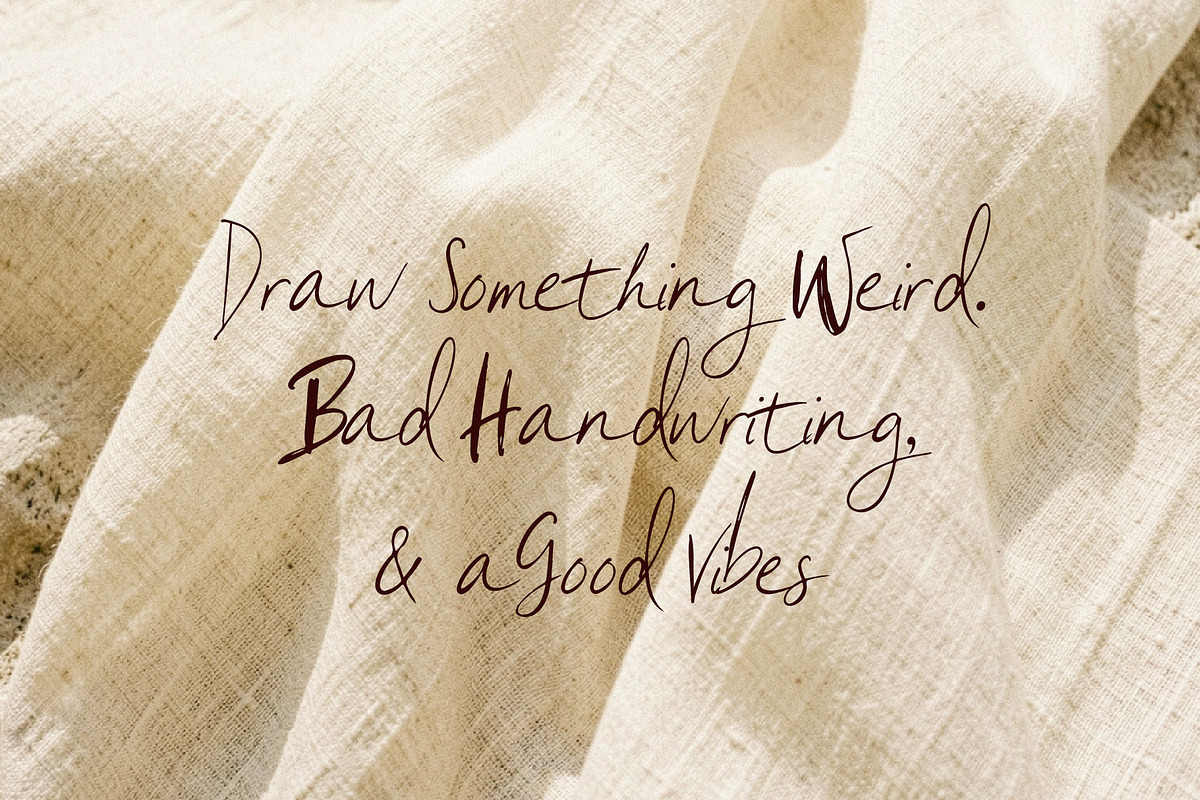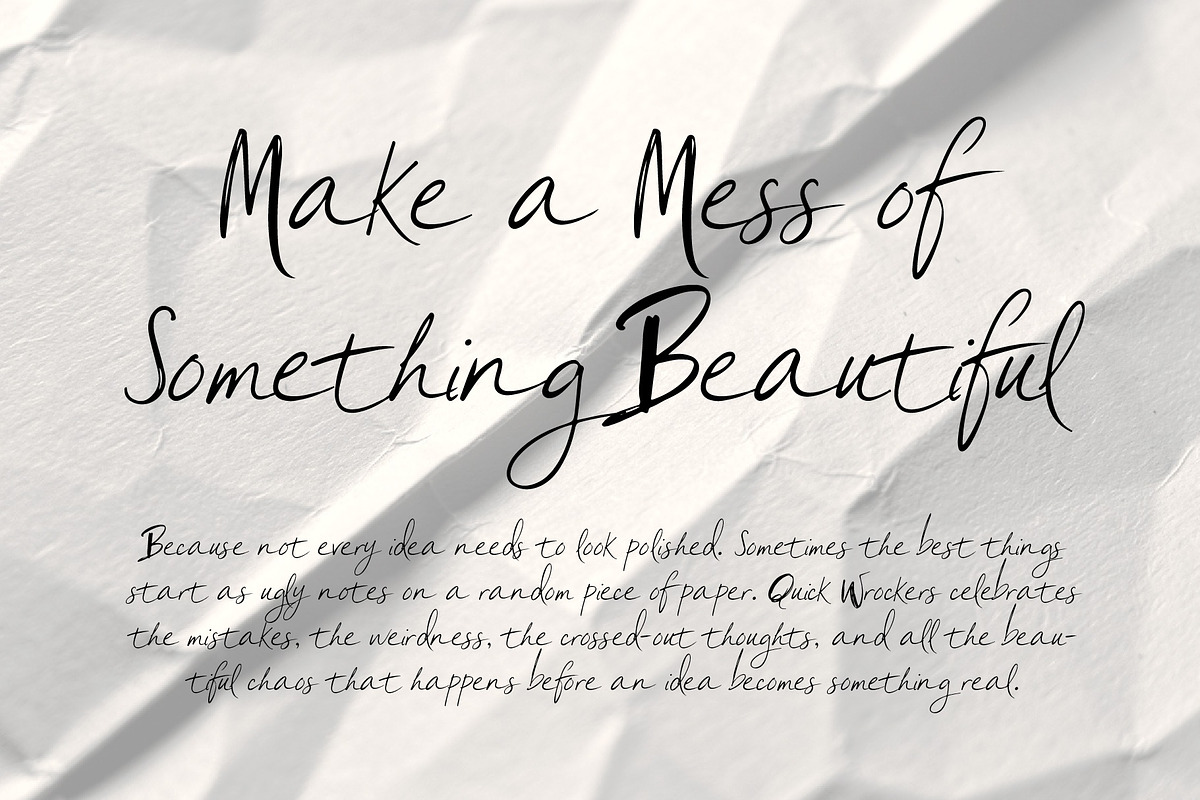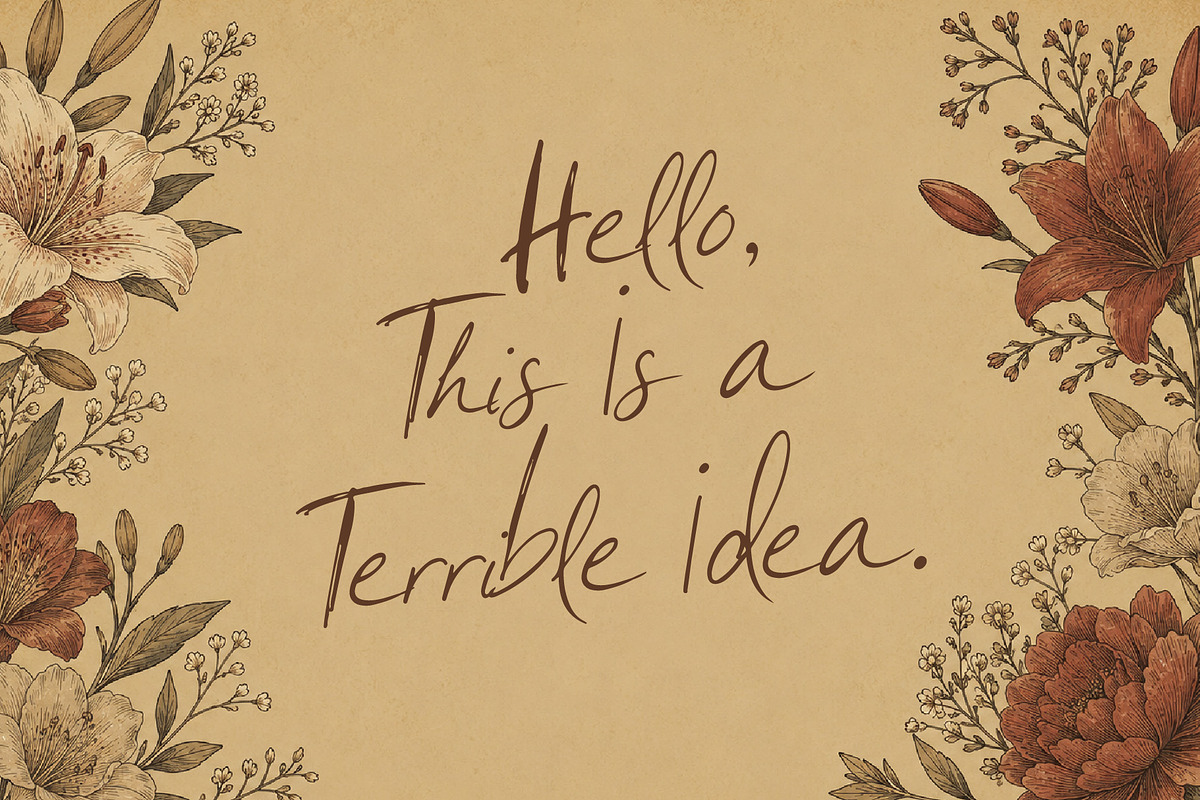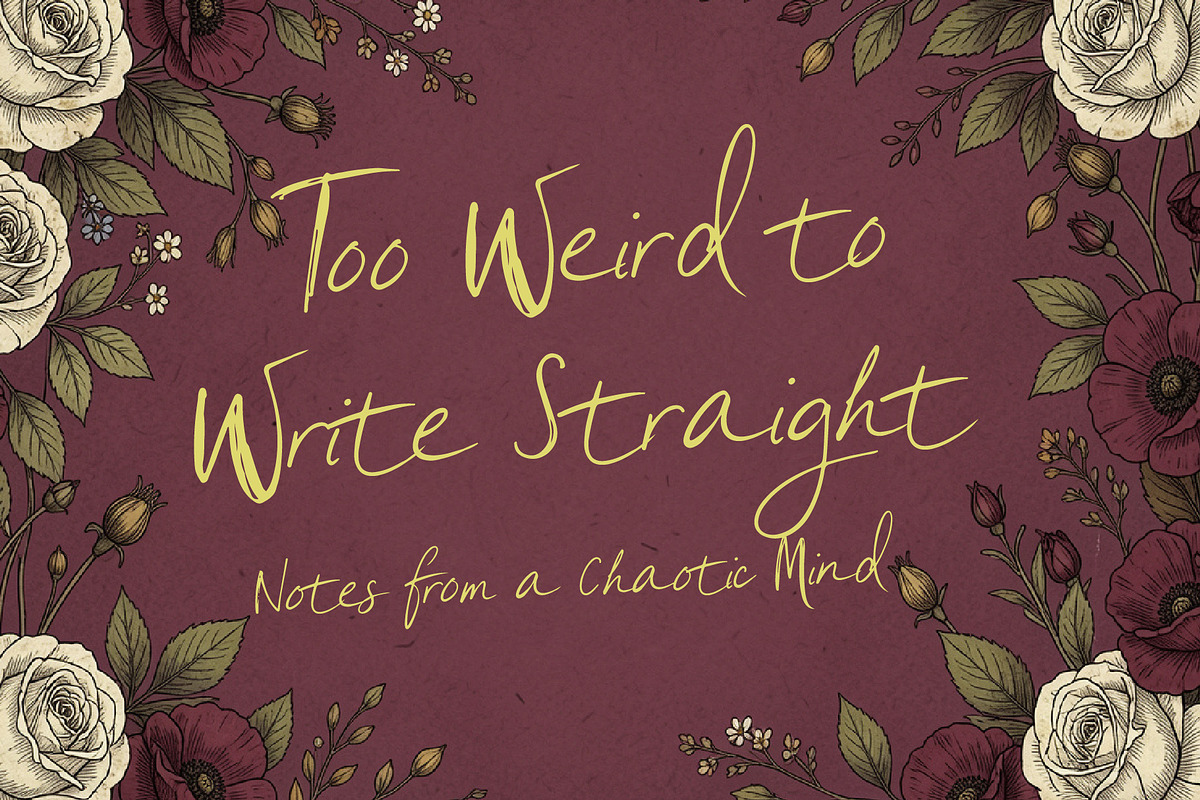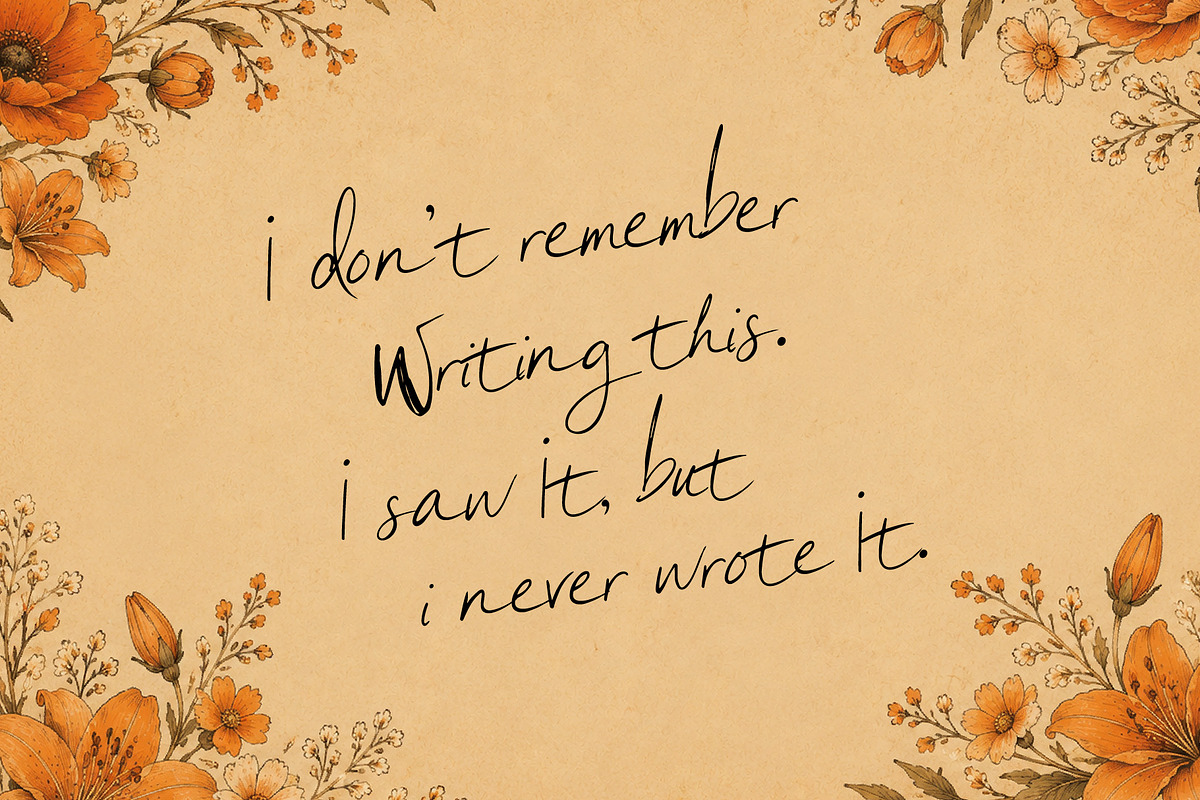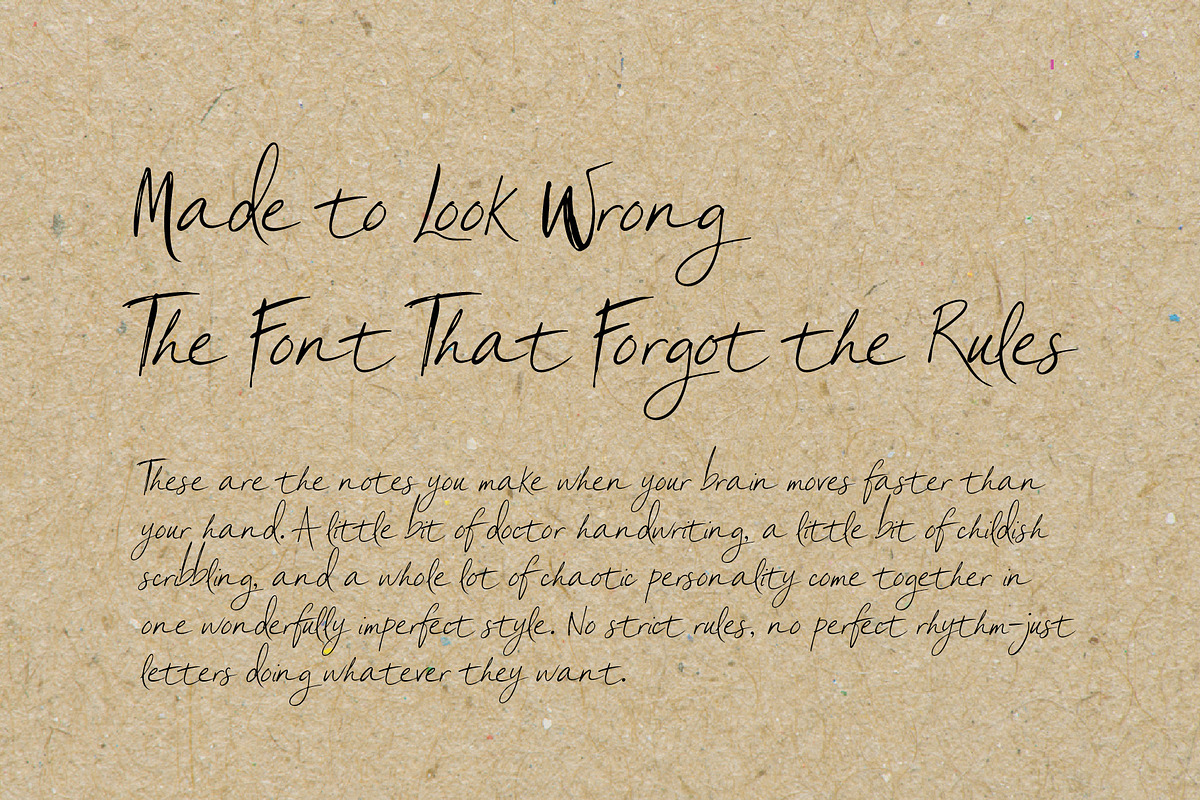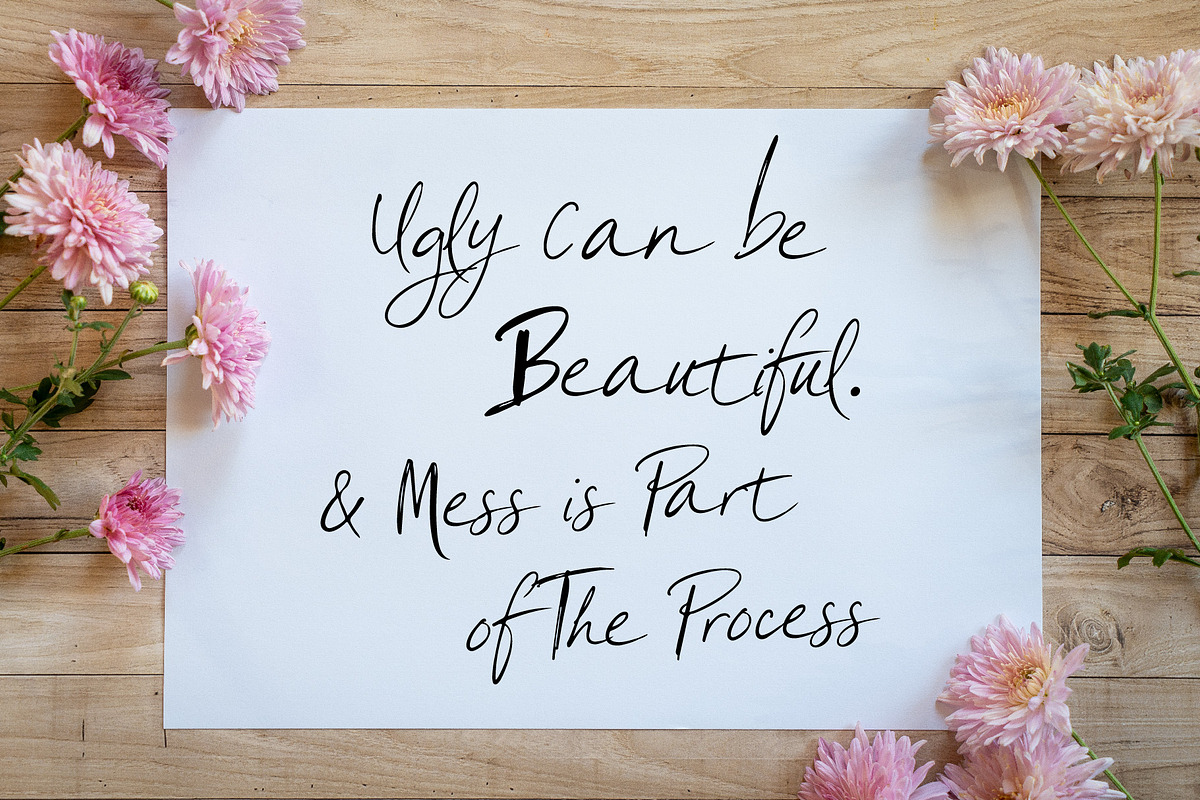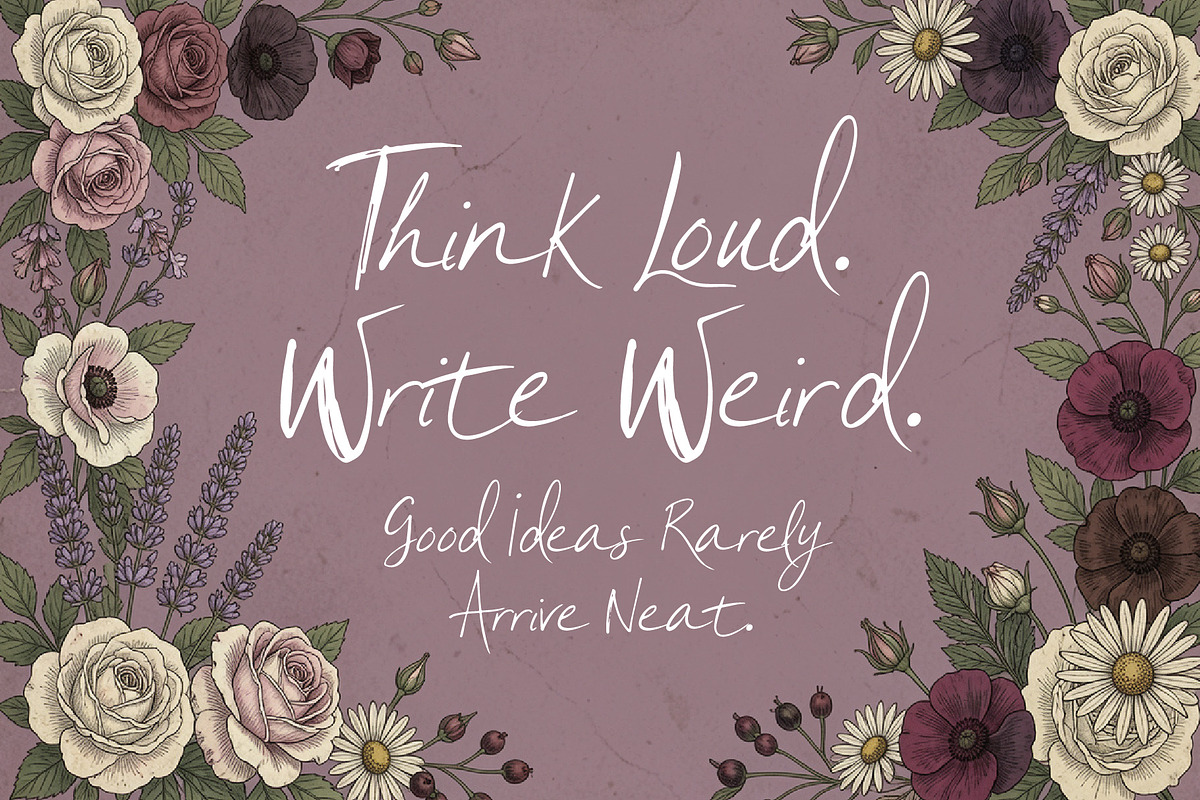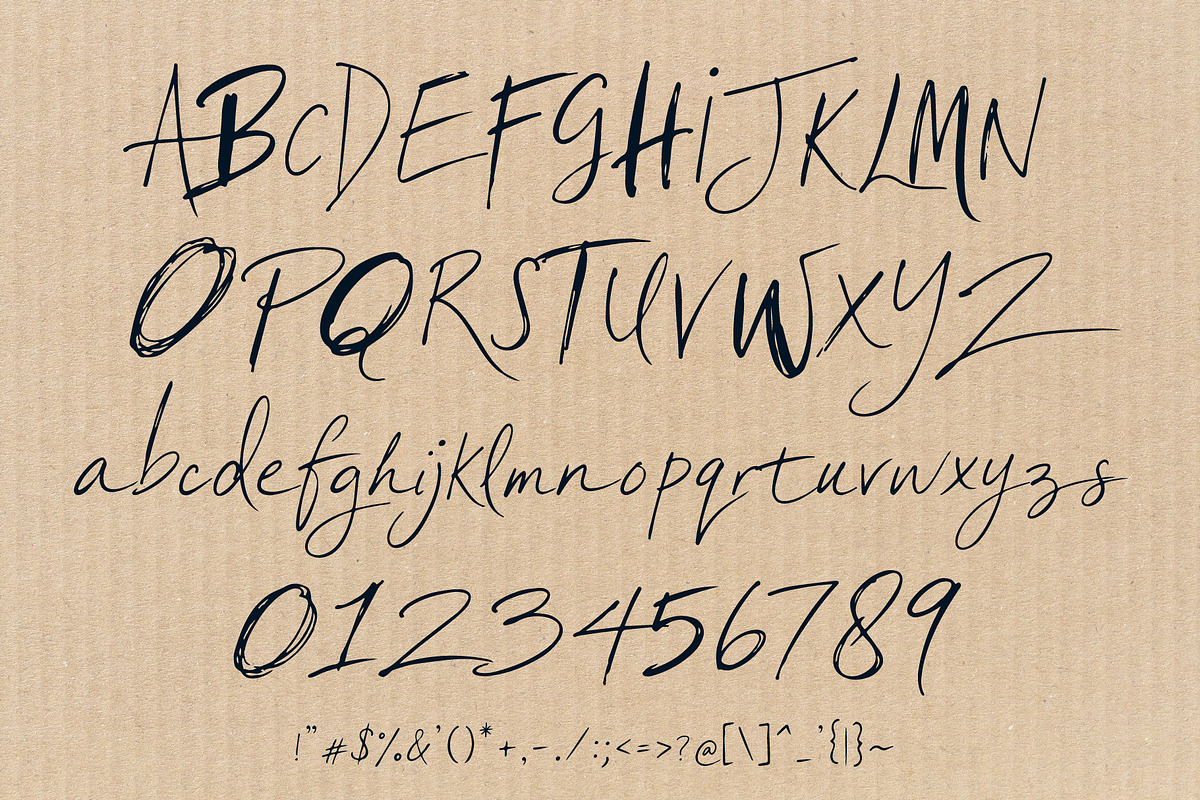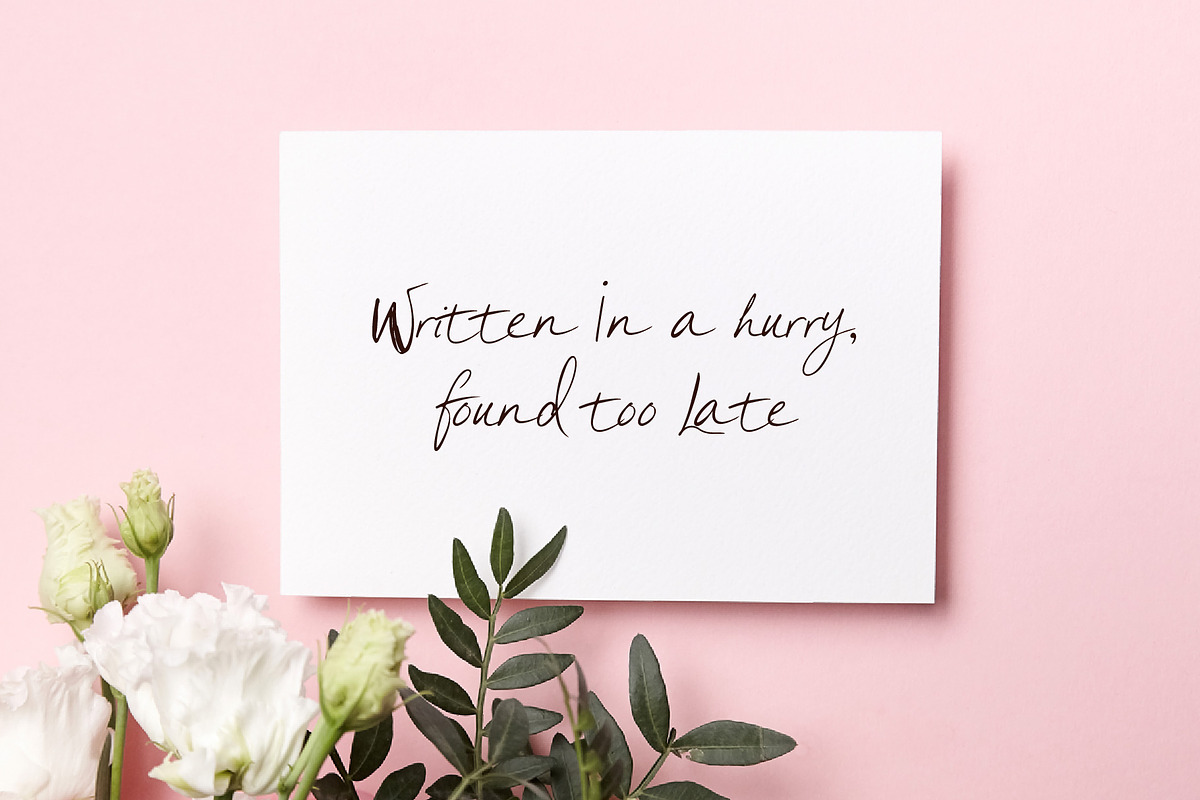
Quick Wrockers - the Ugly Notes
Quick Wrockers is a chaotic hand drawn display font inspired by the messy notes of a doctor, the wild handwriting of kids, and random scribbles from a busy notebook. With unpredictable letterforms, quirky shapes, uneven rhythm, and a wonderfully imperfect personality, it can jump between script-like gestures and rough sans-serif forms. Ugly, playful, strange, and full of character perfect when your design needs to feel handmade, spontaneous, weird, and unapologetically imperfect.